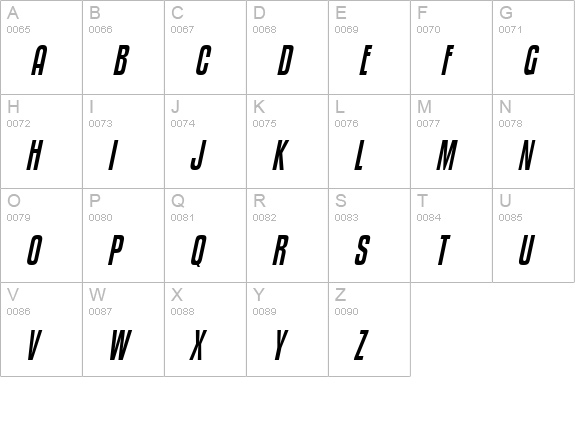
Kenyan Coffee Italic is a distinctive, italic variant in the Kenyan typeface family \xE2\x80\x94 well suited to design and typography projects.
Introducing the exquisite Kenyan Coffee Italic font, a true masterpiece in the world of typography. This font encompasses the spirit of Kenyan coffee, known for its rich flavors and bold aroma. With its sleek and elegant curves, Kenyan Coffee Italic captures the essence of the country's vibrant coffee culture. This font is not just visually stunning, but it also tells a story. Each letter is meticulously crafted, resembling the intricate patterns found in Kenyan coffee beans. The italicized style adds a touch of sophistication and elegance, making it perfect for a wide range of design projects. One of the most incredible aspects of Kenyan Coffee Italic font is that it is freely available for download at FontsMarket.com. Yes, you heard it right - this remarkable font can be yours without any cost. Whether you are a professional designer or simply a coffee aficionado looking to add a touch of creativity to your personal projects, Kenyan Coffee Italic is the perfect choice. Imagine the possibilities that this font opens up. From branding and logo design to packaging, posters, and social media graphics, Kenyan Coffee Italic lends a unique and eye-catching touch to every project. Its versatility allows it to be used across various industries, from coffee shops and cafes to fashion and lifestyle brands. Downloading Kenyan Coffee Italic from FontsMarket.com is effortless, ensuring that you can quickly get started on your creative journey. The user-friendly interface makes it convenient to access this font, making it a valuable addition to your font library. Don't miss out on the opportunity to elevate your designs with the captivating Kenyan Coffee Italic font. Embrace the beauty of Kenyan coffee and make your projects stand out with this freely available font. Download it now from FontsMarket.com and unlock a world of possibilities for your design endeavors.